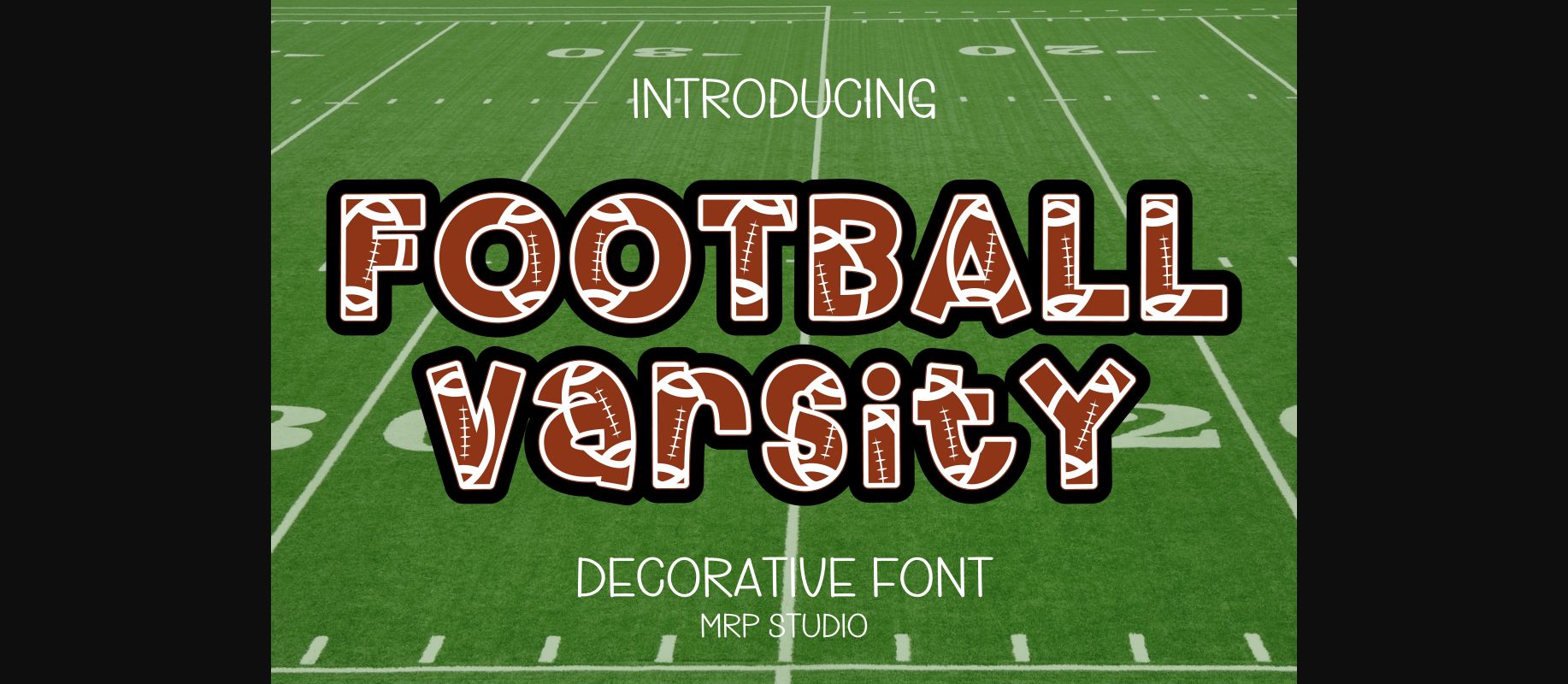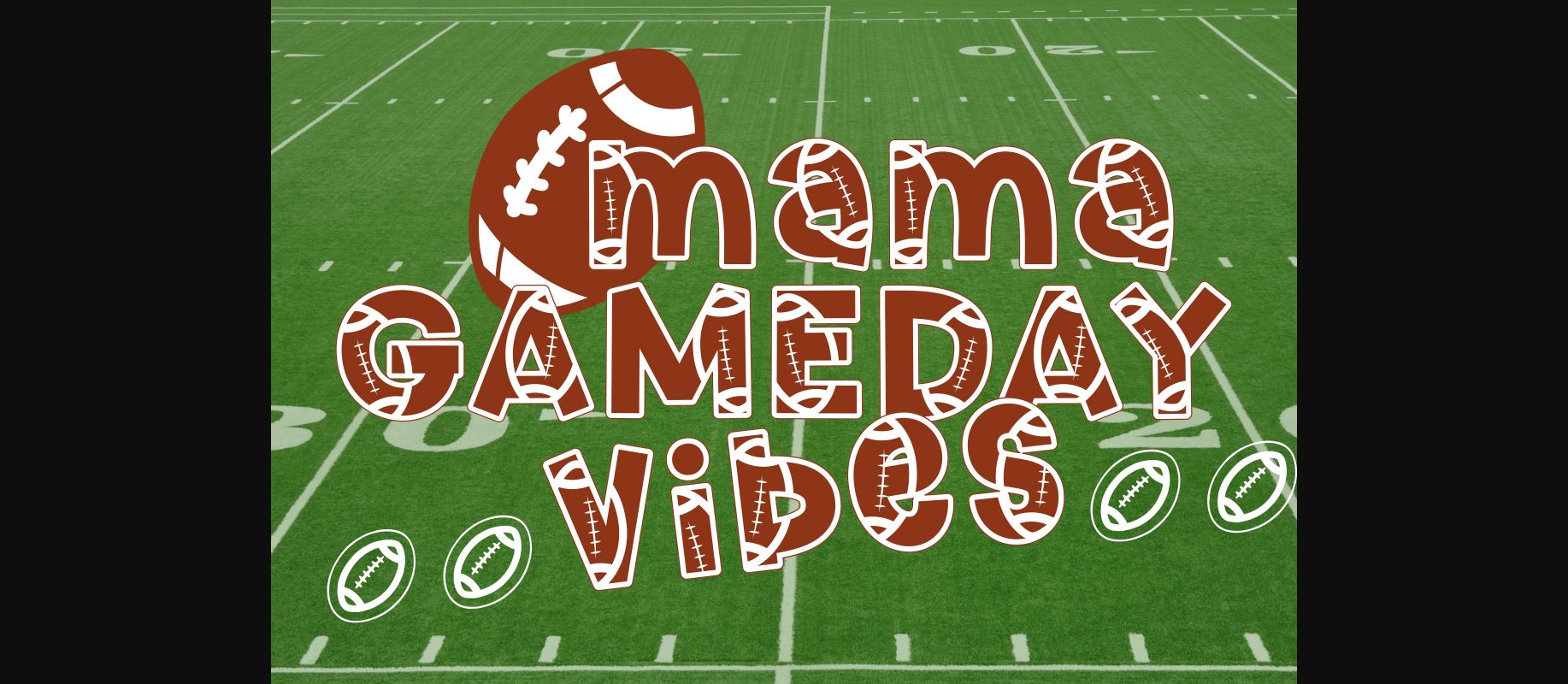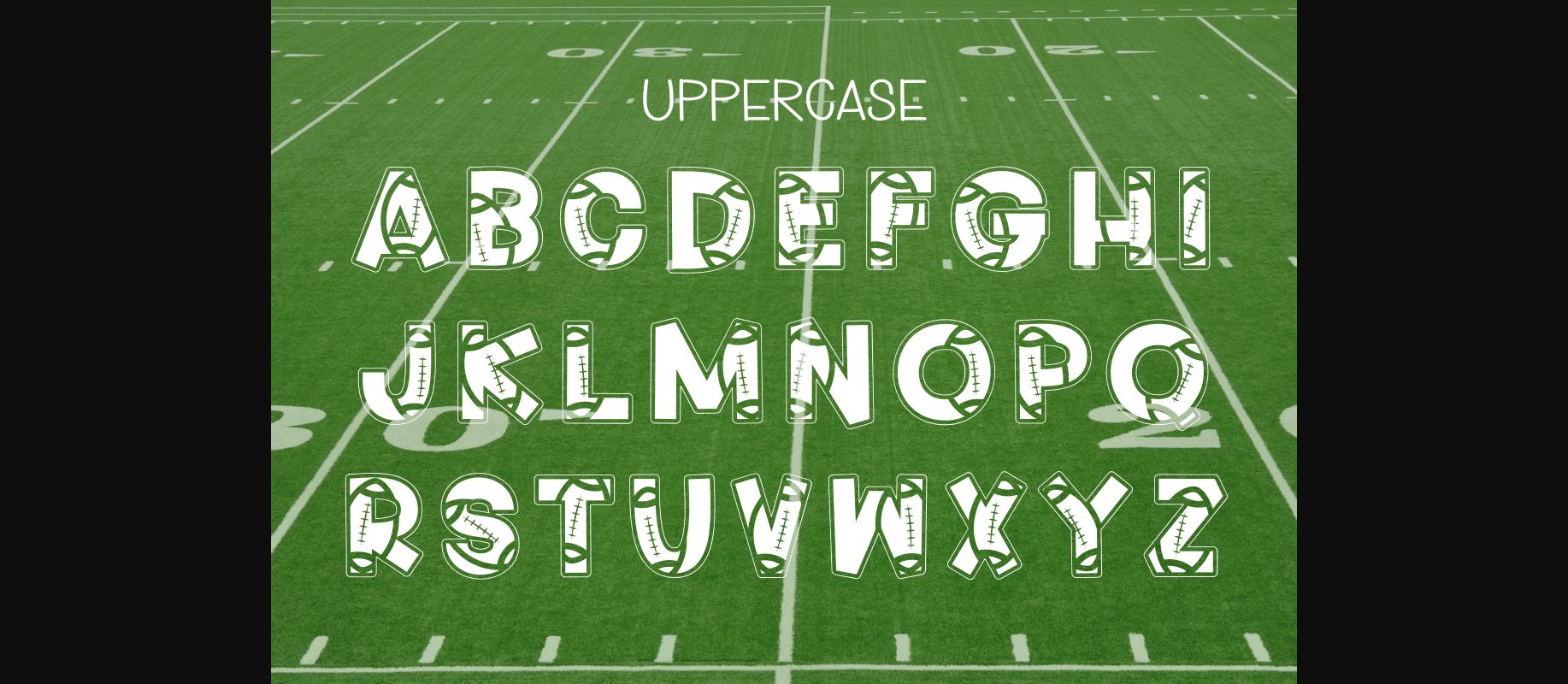
About Football Varsity Font
Football Varsity is a playful and joyful decorative font that’s perfect for adding a touch of whimsy to your designs. Its quirky letterforms and delightful doodles create a fun and lighthearted style that’s perfect for greeting cards, children’s books, and anything that needs a dose of happiness. Get ready to smile!